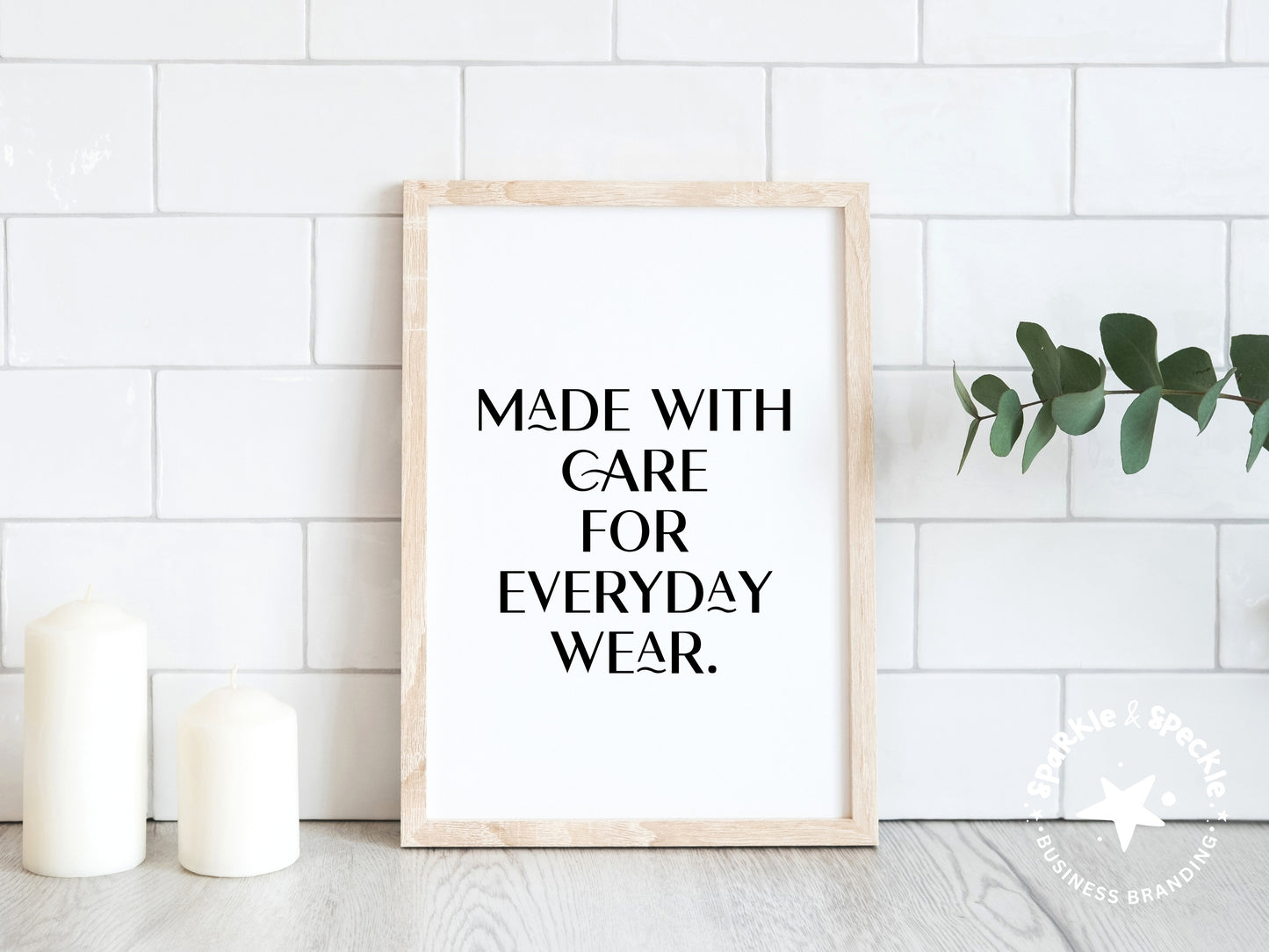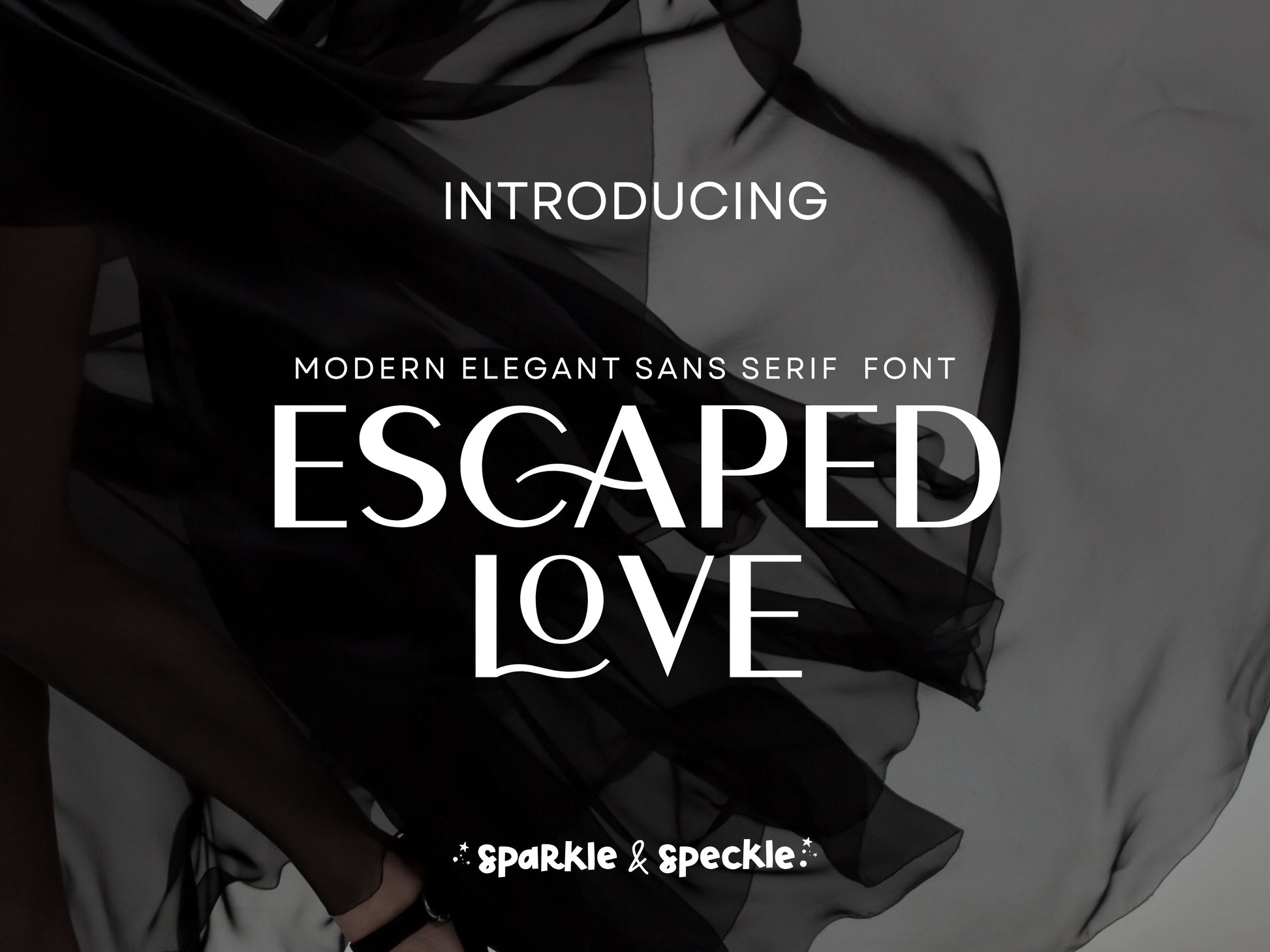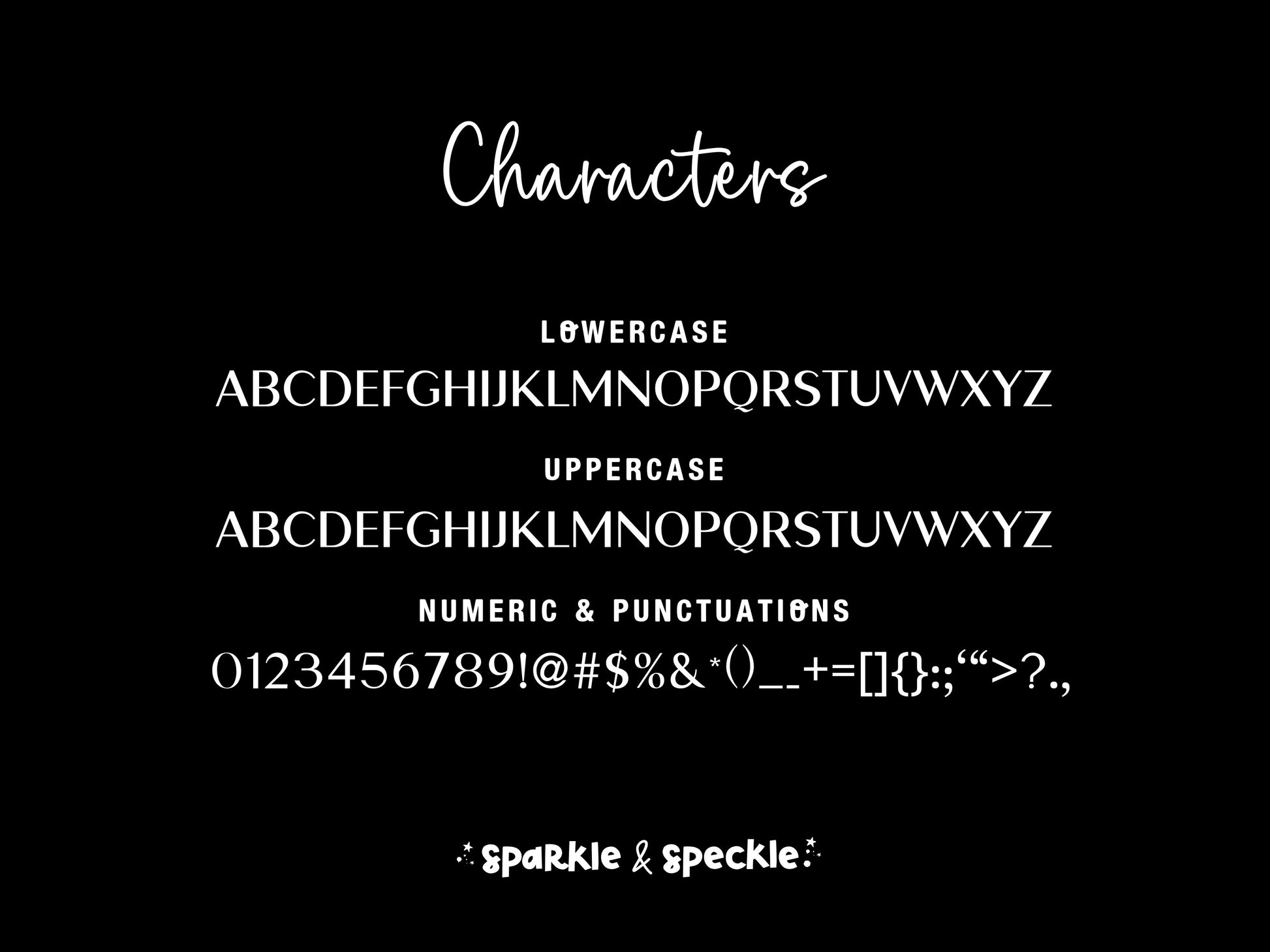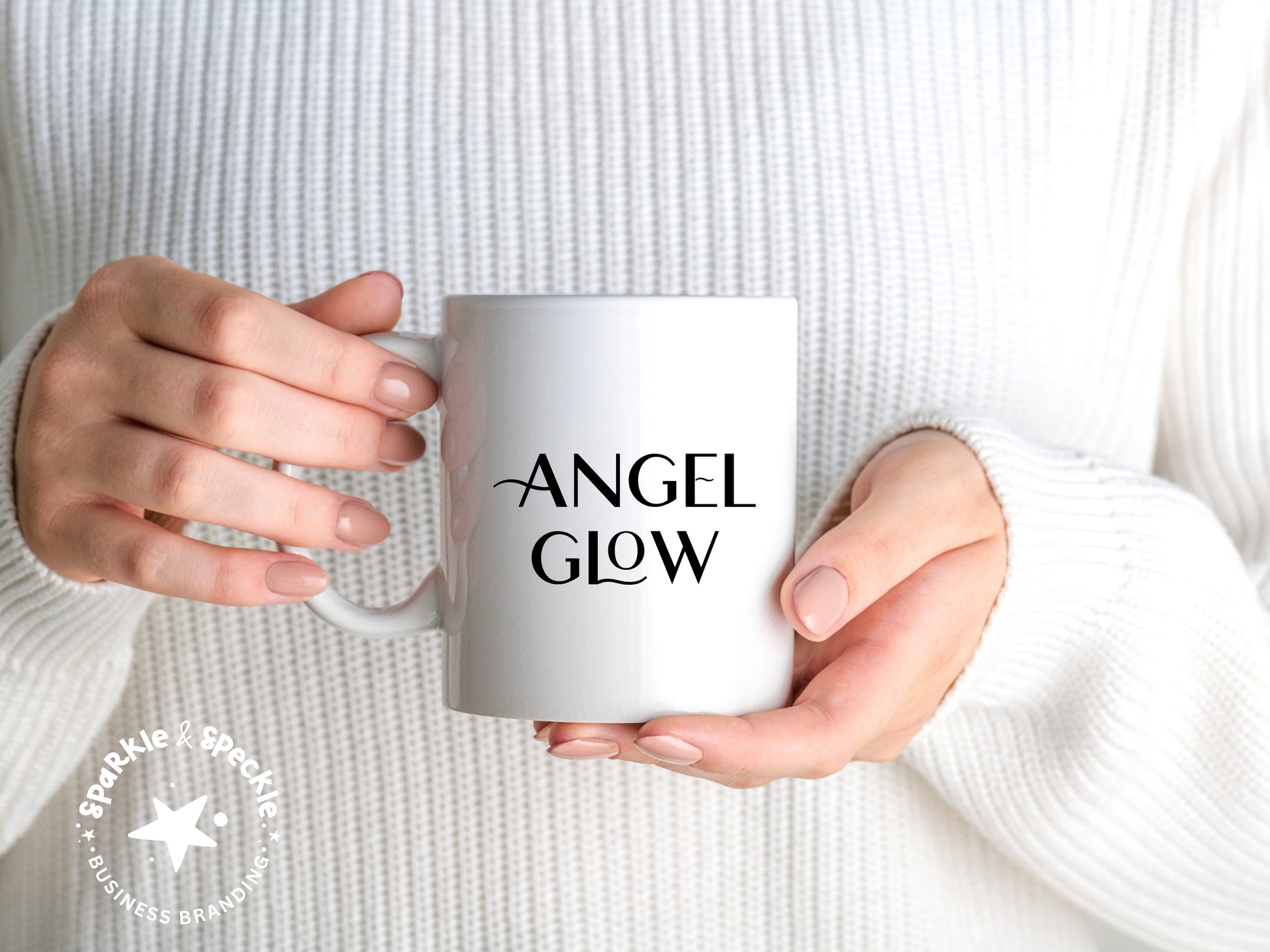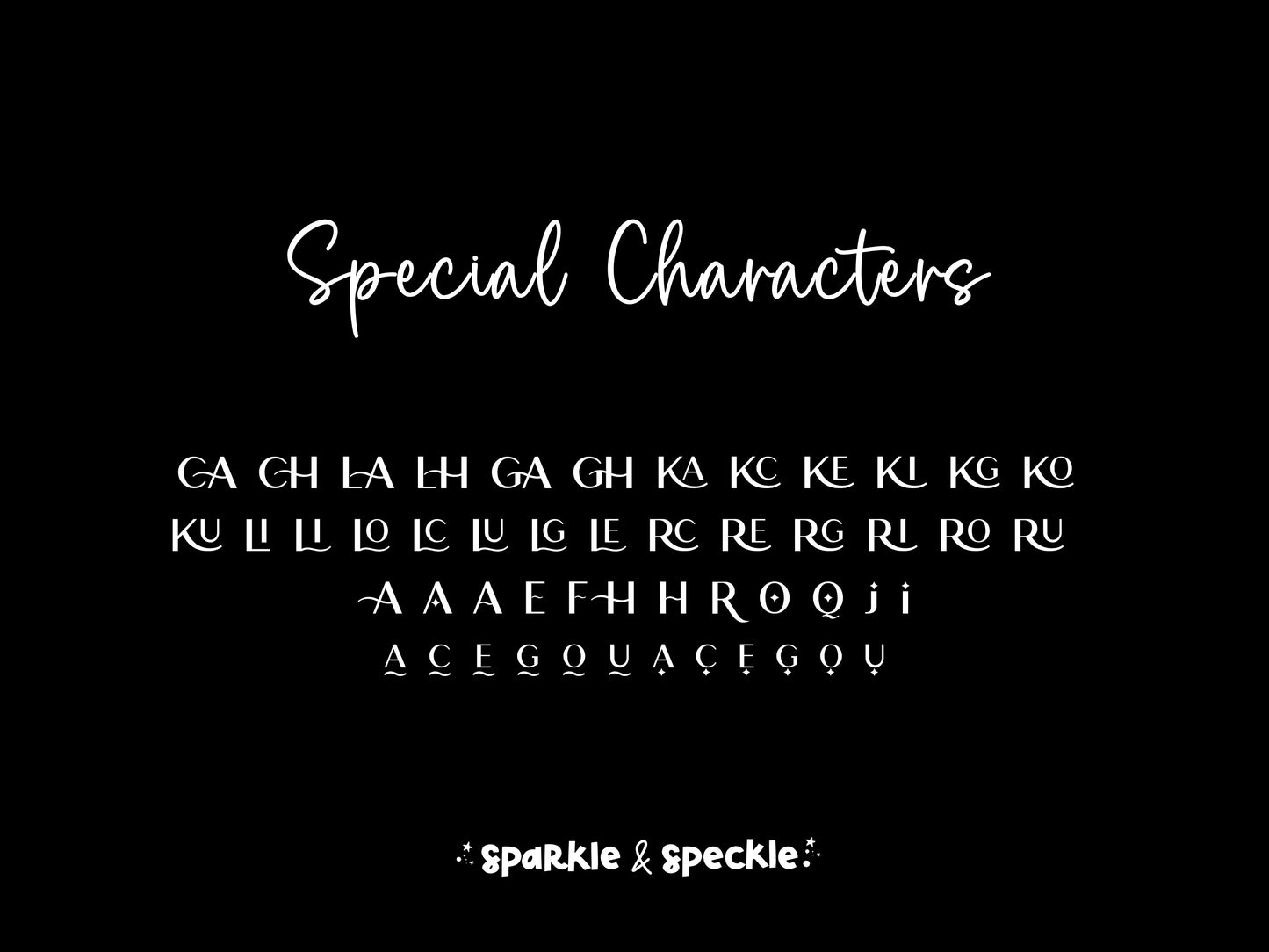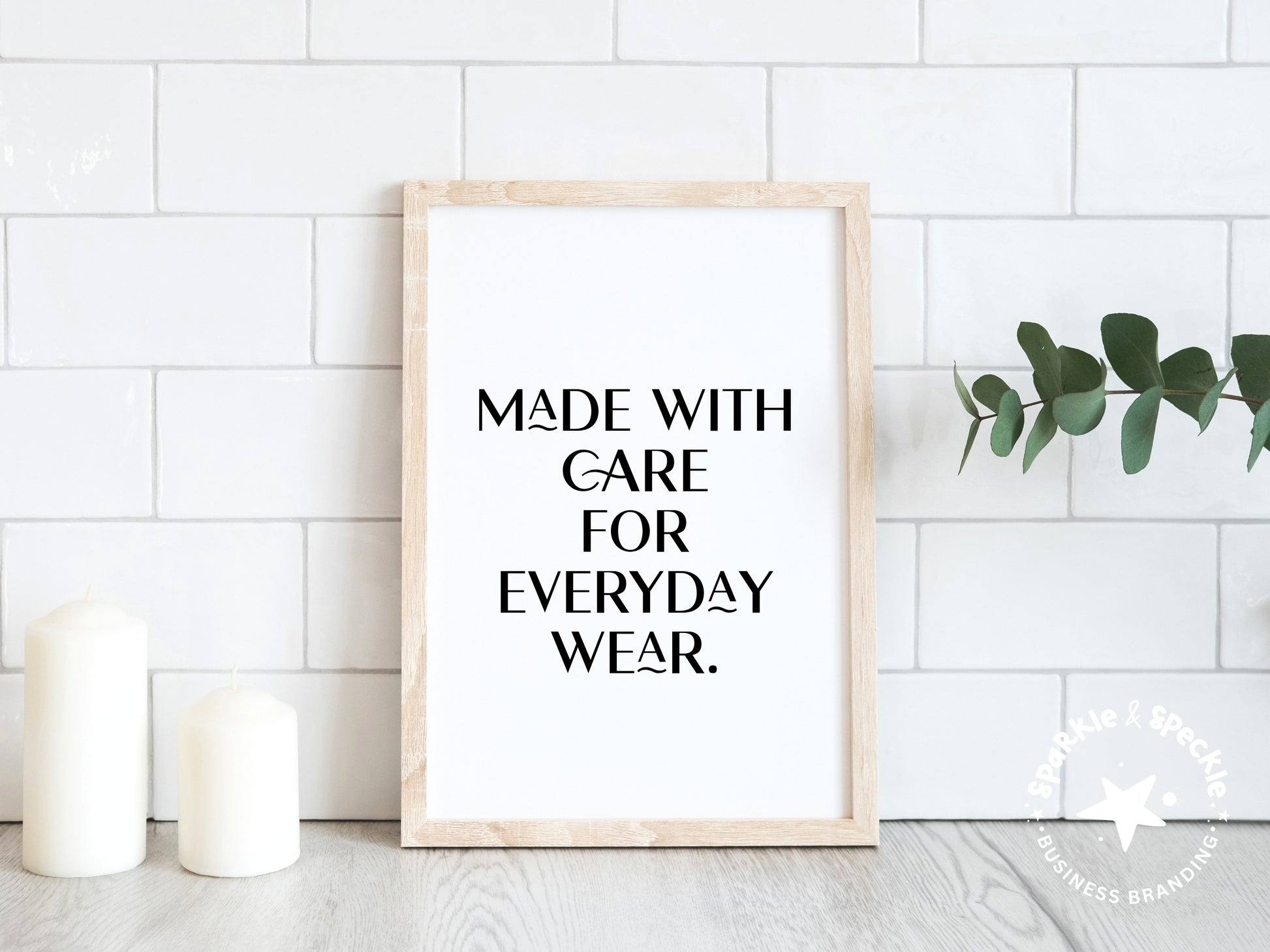
Escaped Love Font – Elegant Sans Serif for Branding
Escaped Love is an elegant sans serif display font designed for modern branding and refined visual identities.
With its thin, balanced letterforms and clean structure, it creates a polished and minimal look while remaining easy to read. Subtle alternate characters and decorative glyphs allow you to customize your typography and create more distinctive, brand-specific designs.
Perfect for logos, packaging, editorial layouts, and digital branding, this font helps you build a cohesive and elevated brand presence.
This font also includes a collection of unique alternate characters and decorative glyphs, allowing you to customize your text and create more distinctive, high-end branding.
Perfect For:
• modern brand identity
• logo design and branding
• fashion and boutique brands
• beauty and wellness businesses
• packaging and product labels
• editorial layouts and magazines
• wedding and event design
• minimal and high-end brands
Features:
• elegant sans serif display font
• thin, refined letterforms
• clean and minimal structure
• modern editorial style
• balanced and easy to read
• subtle decorative details
• ideal for logos and branding
• suitable for print and digital use:
* Not every letter will have an alternate version—only certain letters do.